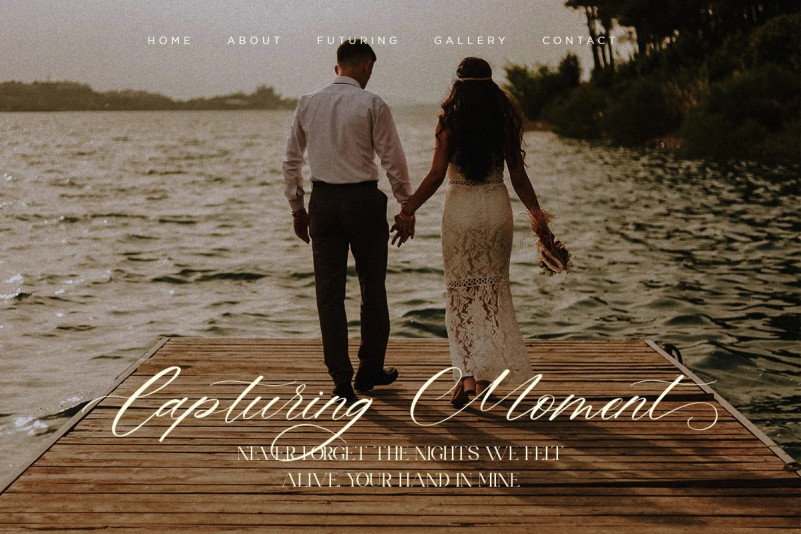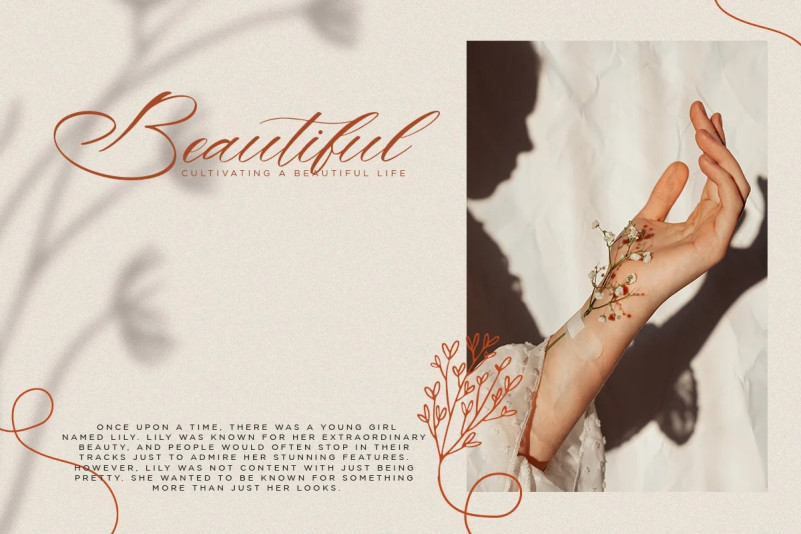
Klice Font
Klice Script Font is an elegant and beautiful character-inspired calligraphy font. It can easily be matched to an incredibly large set of projects, so add it to your creative ideas and notice how it makes them stand out!